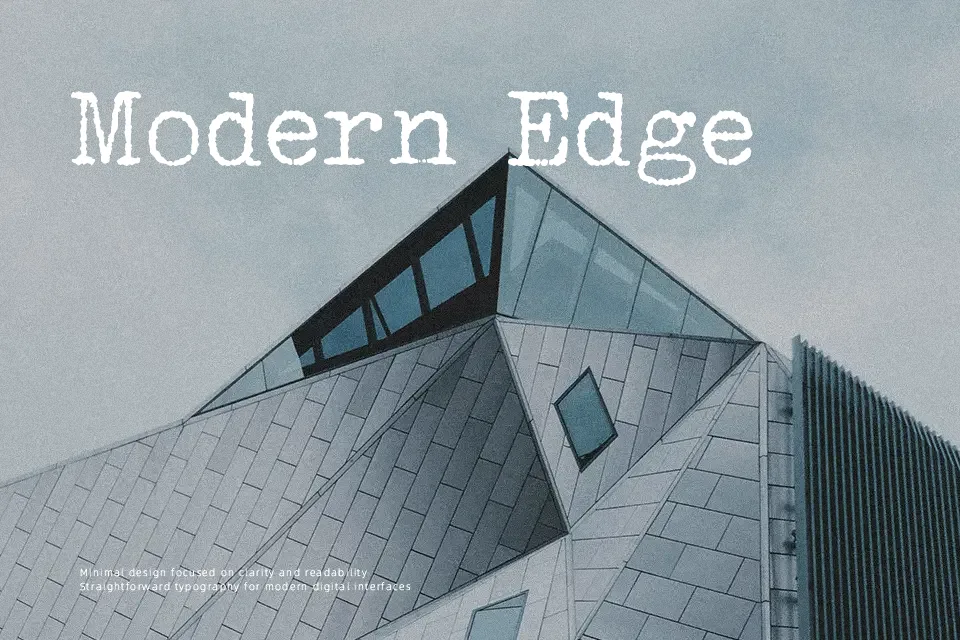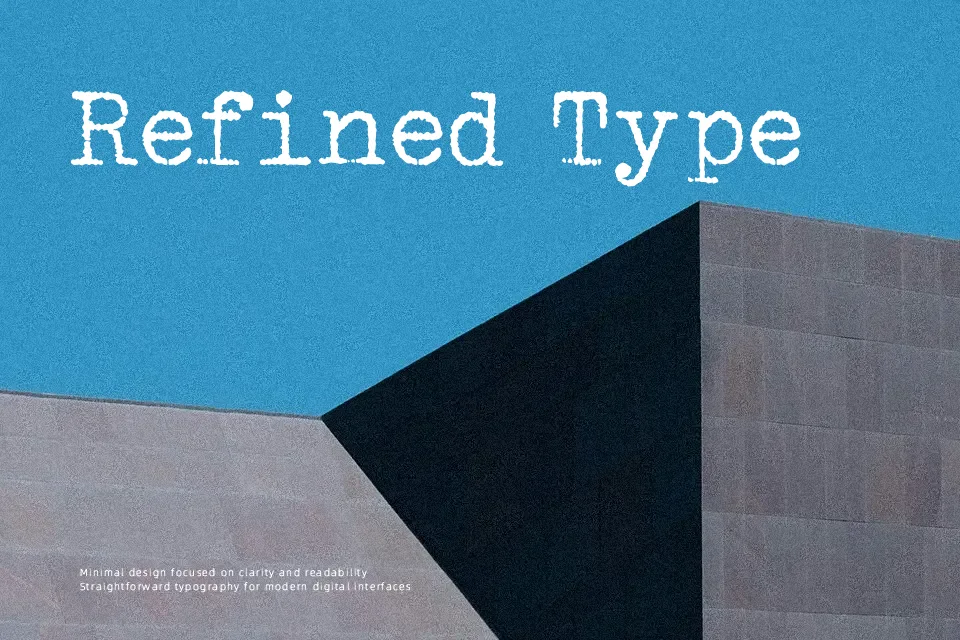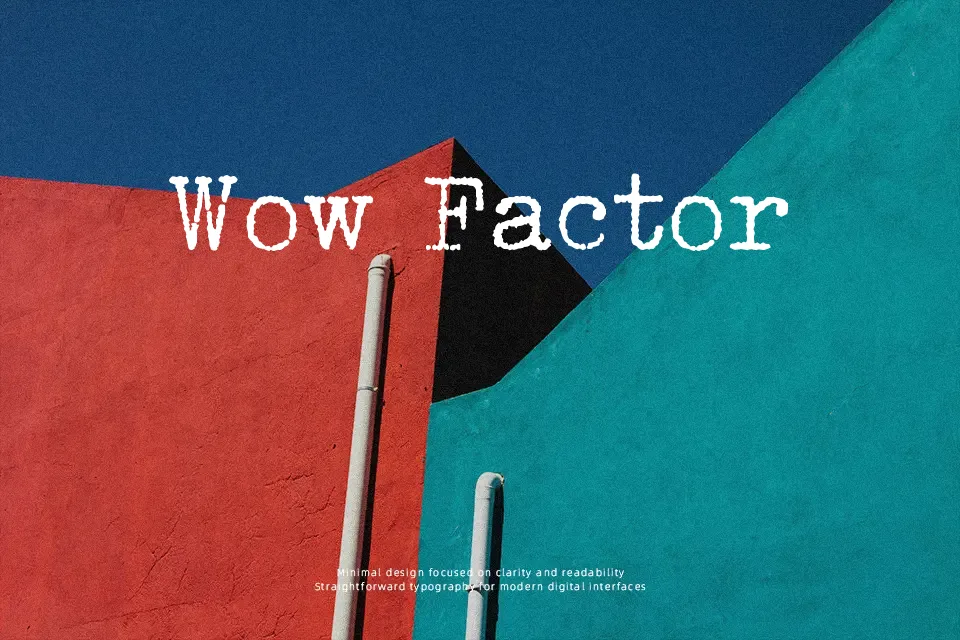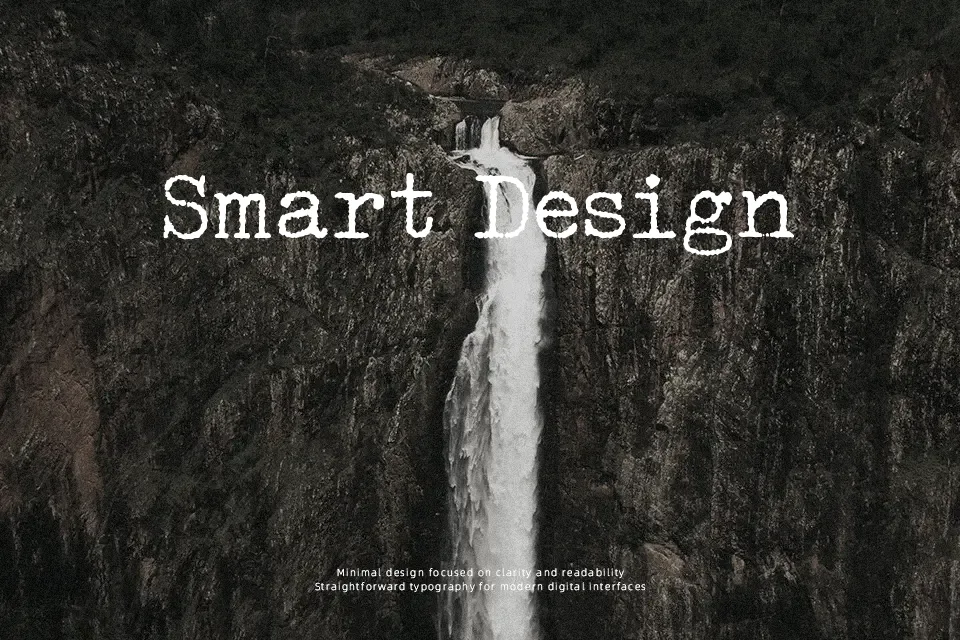
1952 Rheinmetall Font
There’s a tactile roughness to 1952 Rheinmetall that synthetic retro fonts rarely achieve — uneven stroke weight, subtle ink bleed, and irregular character alignment give it the feel of a real mechanical typewriter under heavy use. Created by Lukas Krakora and inspired by actual mid-century typewriter output, the font sits firmly in vintage-grunge territory, projecting a serious, weathered character rather than whimsy. It performs best at display sizes — headlines on wartime-themed posters, retro editorial mastheads, album artwork for bands playing in the dark, brooding end of the spectrum. However, the intentional distress becomes a liability at small sizes, where letterforms begin to blur and legibility drops sharply. Anyone needing clean body text or modern corporate branding should look elsewhere — the grit is non-negotiable here.
Best For:- Wartime-themed editorial and poster headlines
– Retro album artwork and band merchandise
– Historical document or propaganda-style design recreations
– Grungy zine or underground publication covers
Not Ideal For:- Body text or extended reading at small sizes
– Corporate branding or professional business materials
– Clean UI design or digital interface typography
– Children’s content or any cheerful, lighthearted context
Perfect for advertising, editorial, and film, with a dark and display style.